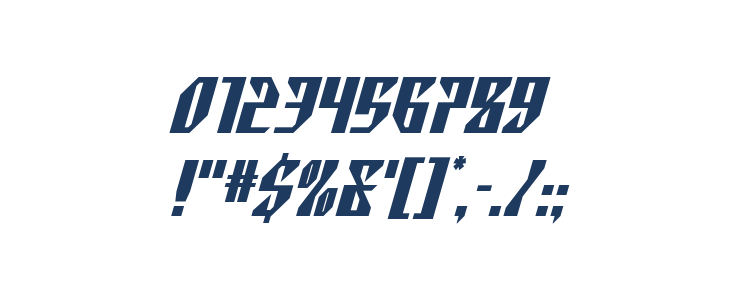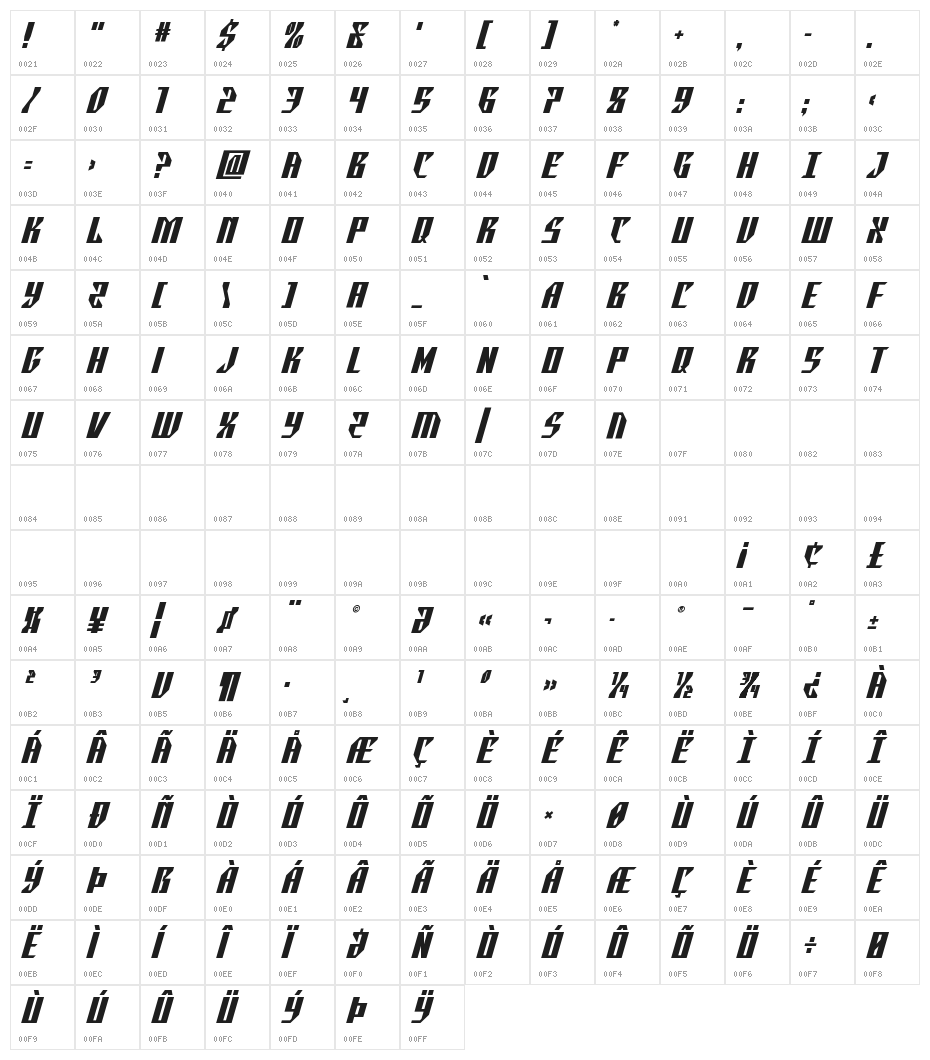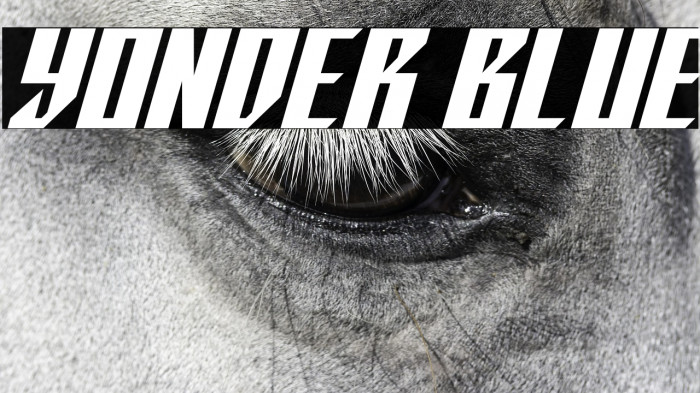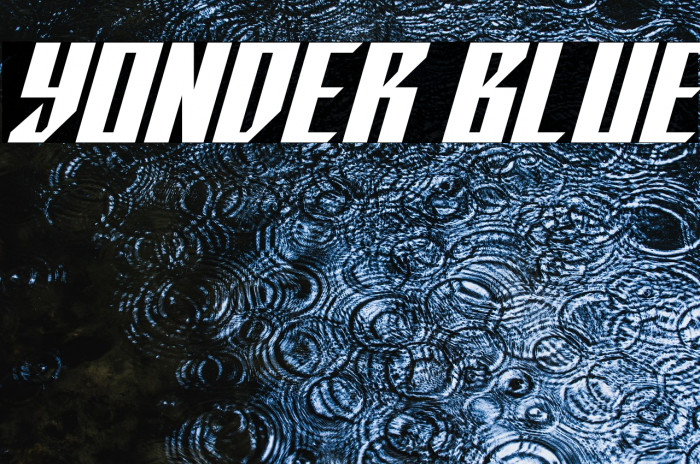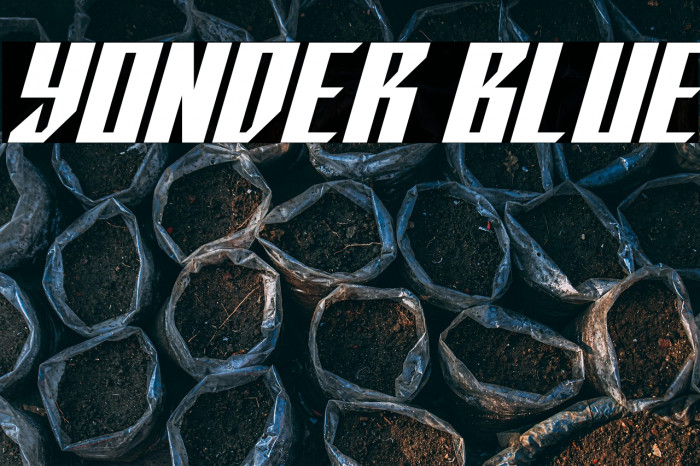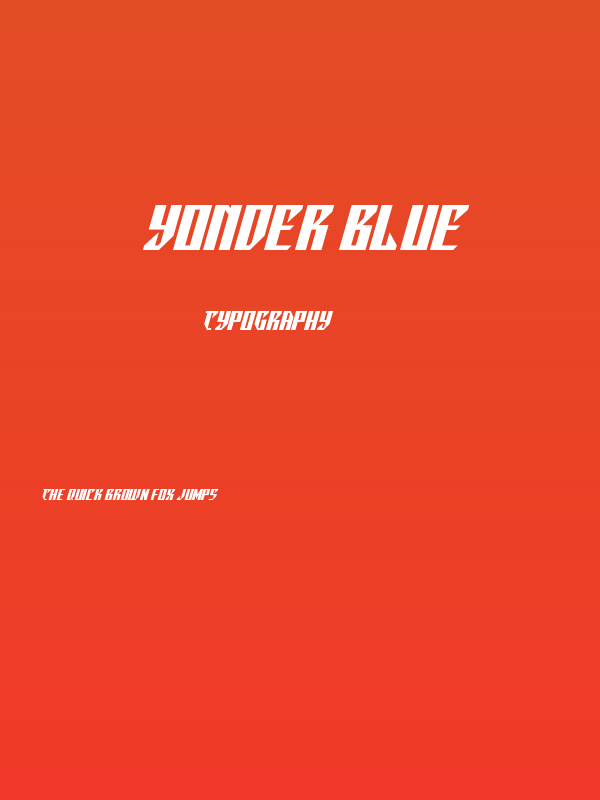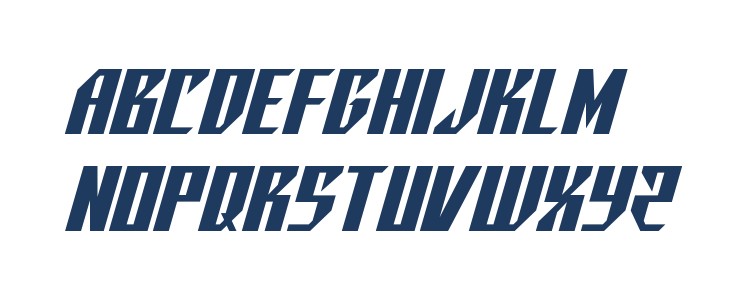
Yonder Blue Font
Yonder Blue Description
This font exhibits a bold and dynamic style with sharp, angular edges and a futuristic aesthetic. The characters are designed with a forward-leaning slant, giving a sense of motion and speed. The uppercase and lowercase letters maintain a consistent geometric structure, while the numbers and special characters complement the overall design. The font's high contrast in stroke thickness enhances its bold appearance, making it stand out in any application. Its unique style is suitable for projects that require a modern and edgy look.
Proposed ProjectsIdeal for sports branding, video game titles, sci-fi movie posters, and dynamic logo designs.